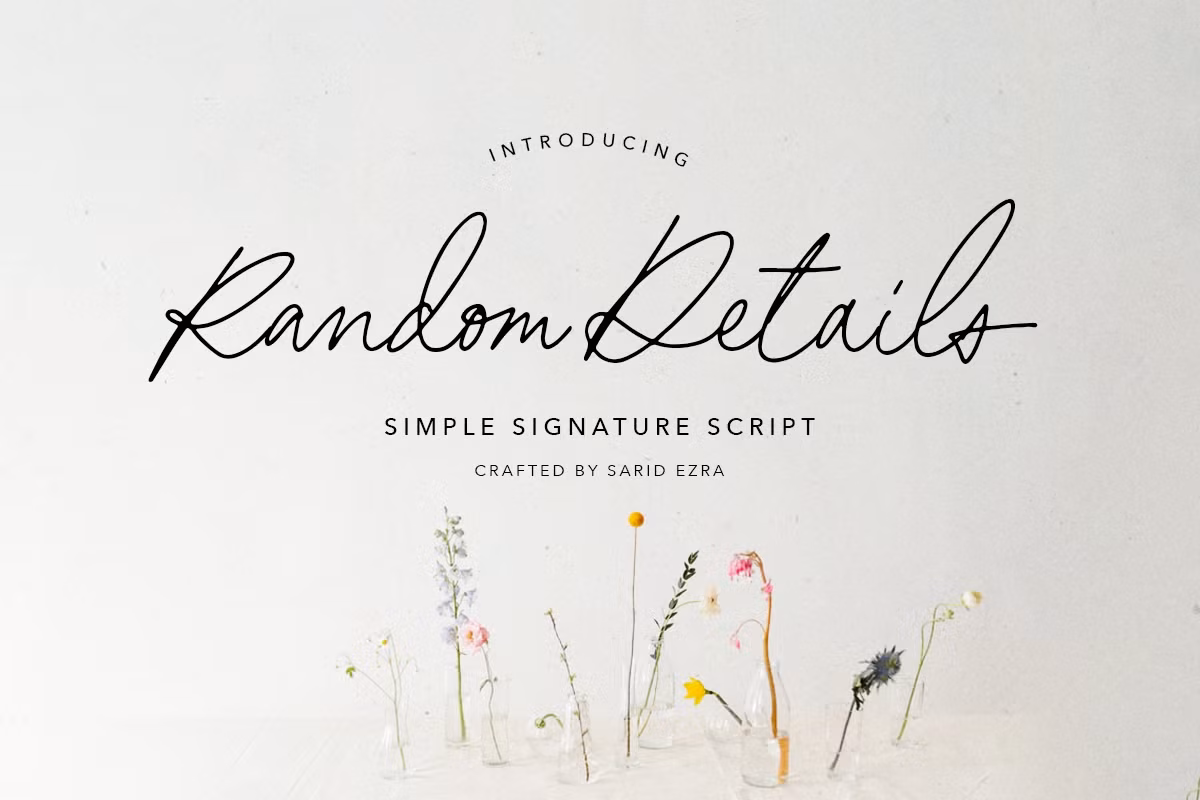
This elegant script font is perfect for wedding invitations, greeting cards, branding materials, social media graphics, logo design, book covers, packaging design, and romantic typography projects. Its flowing letterforms make it ideal for any project that needs a personal, handwritten touch.
Random Details Simple Script Font is exciting because it captures the authentic feel of natural handwriting while maintaining excellent readability. The carefully crafted curves and balanced spacing create a sophisticated yet approachable aesthetic that works beautifully across both digital and print media. Its versatility allows designers to create everything from intimate personal projects to professional brand identities.
The Random Details Simple Script Font family typically includes regular and bold weights, along with various stylistic alternates and ligatures that enhance the natural flow of the script. Many versions also feature extended character sets with international language support and special decorative elements.
Whether you're working on luxury brand identity, artisanal product packaging, or heartfelt personal stationery, Random Details Simple Script Font Free Download delivers the perfect combination of elegance and authenticity. This font brings warmth and personality to any design project, making it an essential addition to any designer's toolkit. The script's organic flow and refined details ensure that your text will stand out while maintaining professional quality and exceptional legibility across various applications and sizes.